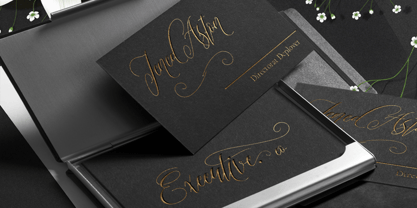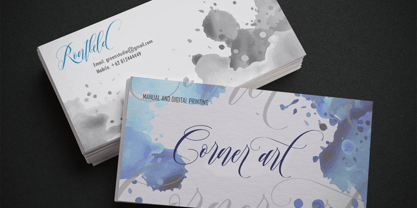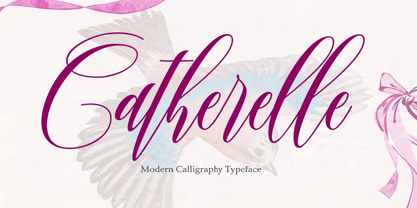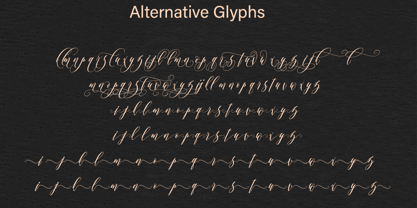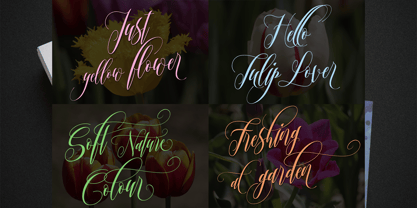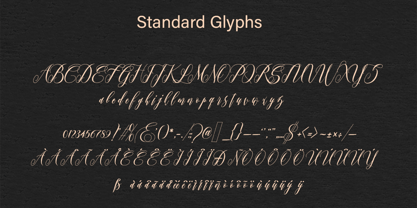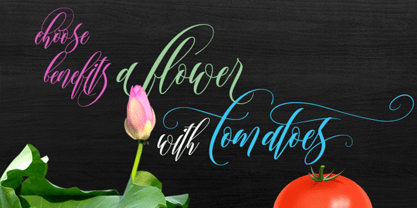
Catherelle
The Catherelle Font Family was designed by Sai Poel and published by Groen Studio. Catherelle contains 1 styles. More about this family
Catherelle – Elegant Calligraphy Font
Catherelle is a graceful calligraphy font that blends classic handwritten elegance with a modern, expressive style. Featuring smooth flowing strokes, delicate curves, and beautifully connected letterforms, Catherelle brings a refined and artistic touch to any creative project.
Designed to capture the beauty of authentic penmanship, Catherelle delivers a natural handwritten feel while maintaining excellent readability. Its elegant rhythm and stylish flourishes make it ideal for luxury branding, wedding stationery, fashion editorials, product packaging, social media content, and signature-inspired designs.
Whether used for sophisticated logos, romantic invitations, or eye-catching typography, Catherelle adds charm, personality, and timeless elegance to every composition.
Features
• Elegant calligraphy style
• Smooth handwritten flow
• Beautiful swashes and curves
• Uppercase and lowercase characters
• Numerals and punctuation
• Ligatures and stylistic alternates
• Multilingual support
• Suitable for print and digital projects
Perfect For
• Wedding invitations
• Luxury branding
• Signature logos
• Beauty and fashion brands
• Product packaging
• Greeting cards
• Social media graphics
• Photography watermarks
• Editorial designs
• Quotes and typography artwork